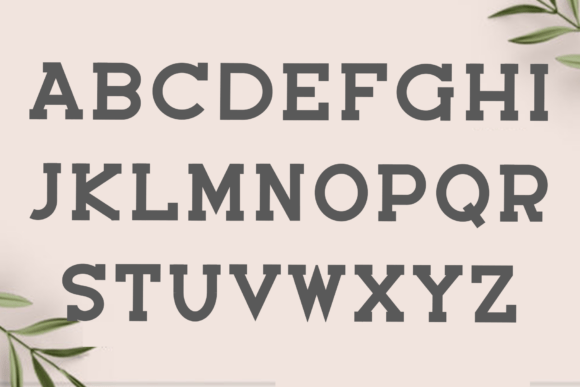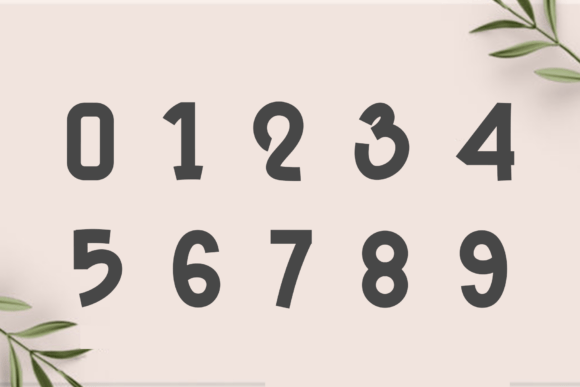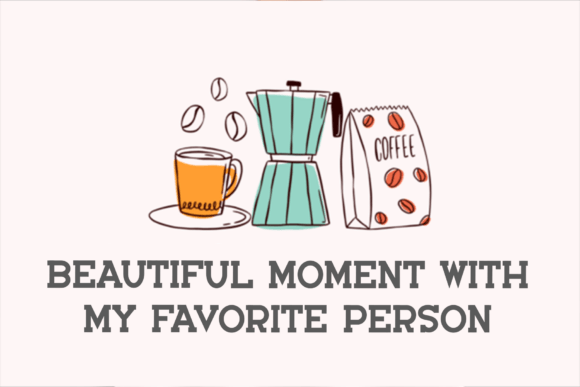
Introduction to Exited Font
Exited is a festive and merry typeface that captures the spirit of the holiday season.
With its decorative elements and whimsical flair, it adds a touch of enchantment to your designs Perfect for greeting cards, gift tags, and holiday-themed projects, this font brings a cheerful and nostalgic ambiance to your words.
Key Features of Exited Font